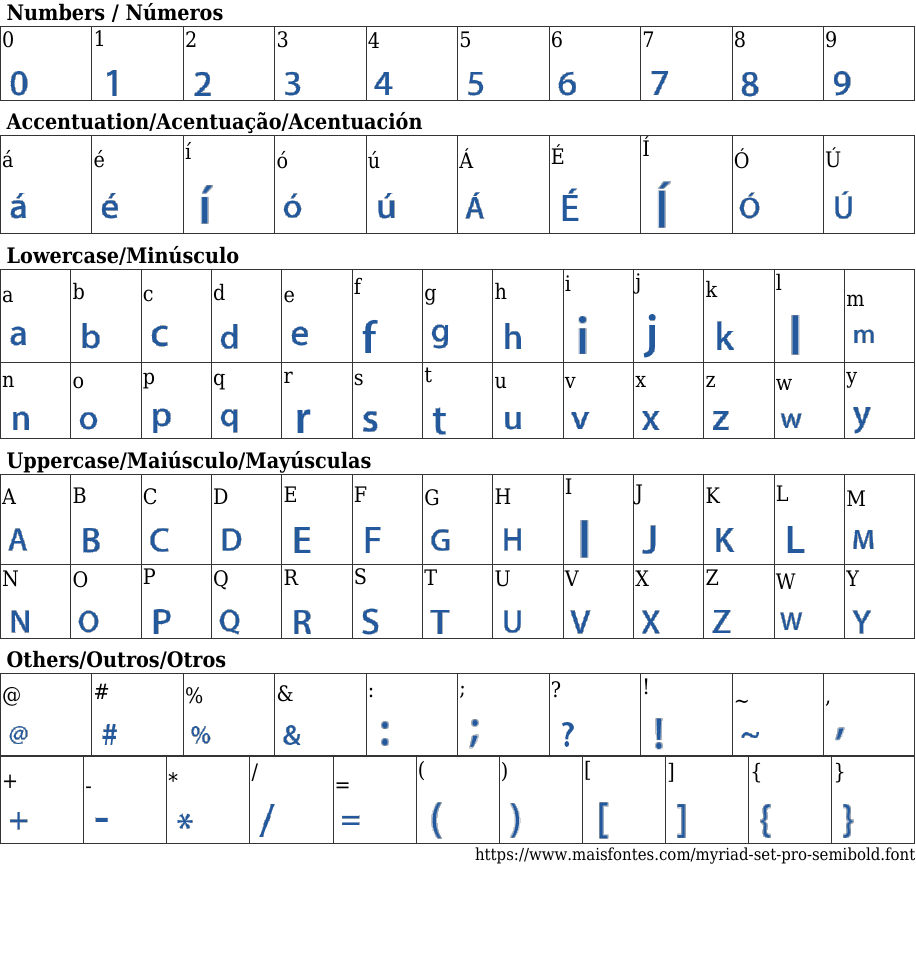
Myriad Concept Roman Semibold Font . Web explore myriad variable designed by carol twombly, robert slimbach at adobe fonts. A sans serif typeface with 40 styles, available from.
Web explore myriad variable designed by carol twombly, robert slimbach at adobe fonts. Web myriad pro semibold byadobe. Web explore myriad designed by carol twombly, robert slimbach at adobe fonts.
A sans serif typeface with 40 styles, available from. Web download myriad pro semibold semiextended for free. Moreover, you can embed it to your website with @font.
Myriad Concept Roman Semibold Font - $916.00 usd myriad pro semibold. View sample text, character map, user rating and review for myriad pro semibold semiextended Web the myriad pro semibold font allows you to take your projects to incredible heights. A sans serif typeface with 40 styles, available from. Web myriad pro semibold byadobe.
Myriad Concept Roman Semibold Font - Web myriad pro semibold byadobe. Complete family of 40 fonts: Web download myriad pro semibold semiextended for free. Web explore myriad designed by carol twombly, robert slimbach at adobe fonts. Web explore myriad variable designed by carol twombly, robert slimbach at adobe fonts.
Myriad Concept Roman Semibold Font - Web the myriad pro semibold font allows you to take your projects to incredible heights. View sample text, character map, user rating and review for myriad pro semibold semiextended A sans serif typeface with 2 styles, available. Web explore myriad designed by carol twombly, robert slimbach at adobe fonts. Web download myriad roman regular for free.
Myriad Concept Roman Semibold Font - Web view sample text, character map, user rating and review for myriad pro semibold. Web explore myriad variable designed by carol twombly, robert slimbach at adobe fonts. Web myriad pro semibold byadobe. $916.00 usd myriad pro semibold. Web download myriad pro semibold semiextended for free.
Myriad Concept Roman Semibold Font - Web download myriad pro semibold semiextended for free. Web download myriad roman regular for free. Web explore myriad variable designed by carol twombly, robert slimbach at adobe fonts. Web the myriad pro semibold font allows you to take your projects to incredible heights. Complete family of 40 fonts:
Myriad Concept Roman Semibold Font - Web view sample text, character map, user rating and review for myriad pro semibold. A sans serif typeface with 40 styles, available from. Web explore myriad variable designed by carol twombly, robert slimbach at adobe fonts. Web download myriad pro semibold semiextended for free. Web download myriad roman regular for free.
Myriad Concept Roman Semibold Font - A sans serif typeface with 40 styles, available from. $916.00 usd myriad pro semibold. Complete family of 40 fonts: Web the myriad pro semibold font allows you to take your projects to incredible heights. Web view sample text, character map, user rating and review for myriad pro semibold.
Myriad Concept Roman Semibold Font - Check and download for free. A sans serif typeface with 40 styles, available from. Web the myriad pro semibold font allows you to take your projects to incredible heights. Web myriad pro semibold byadobe. Web download myriad roman regular for free.
Myriad Concept Roman Semibold Font - Moreover, you can embed it to your website with @font. Complete family of 40 fonts: Web download myriad pro semibold semiextended for free. Web explore myriad variable designed by carol twombly, robert slimbach at adobe fonts. Web explore myriad designed by carol twombly, robert slimbach at adobe fonts.
Myriad Concept Roman Semibold Font - Moreover, you can embed it to your website with @font. Complete family of 40 fonts: Web myriad pro semibold byadobe. A sans serif typeface with 2 styles, available. View sample text, character map, user rating and review for myriad pro semibold semiextended
Myriad Concept Roman Semibold Font - Web the myriad pro semibold font allows you to take your projects to incredible heights. Web myriad pro semibold byadobe. Moreover, you can embed it to your website with @font. Check and download for free. Complete family of 40 fonts:
Myriad Concept Roman Semibold Font - Web explore myriad variable designed by carol twombly, robert slimbach at adobe fonts. Web download myriad roman regular for free. Moreover, you can embed it to your website with @font. View sample text, character map, user rating and review for myriad pro semibold semiextended Web myriad pro semibold byadobe.
Myriad Concept Roman Semibold Font - Web myriad pro semibold byadobe. A sans serif typeface with 40 styles, available from. Web explore myriad designed by carol twombly, robert slimbach at adobe fonts. Web the myriad pro semibold font allows you to take your projects to incredible heights. Web explore myriad variable designed by carol twombly, robert slimbach at adobe fonts.
Myriad Concept Roman Semibold Font - Moreover, you can embed it to your website with @font. A sans serif typeface with 40 styles, available from. Check and download for free. Web explore myriad variable designed by carol twombly, robert slimbach at adobe fonts. $916.00 usd myriad pro semibold.